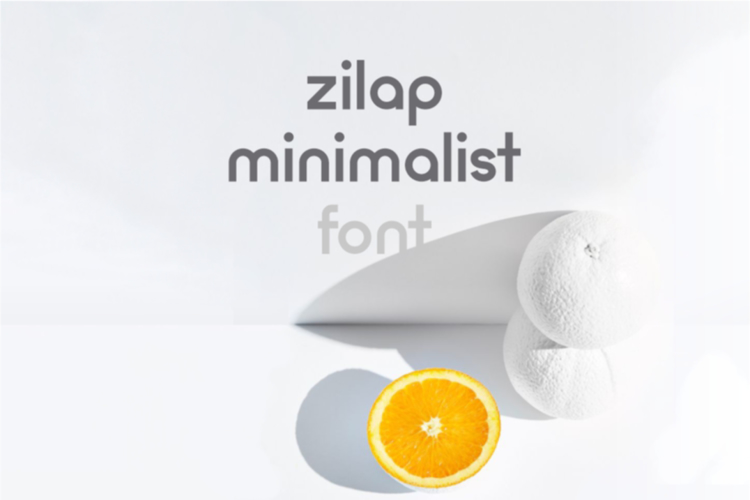
Zilap Minimalist Font
About Zilap Minimalist Font
This font is perfect for all those who want to represent minimalism at its best.
The structure of this typeface It is simple and modern so that it is fit all your ideas.